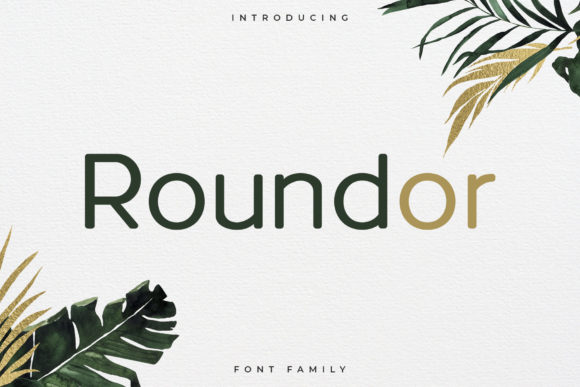
In a world clamoring for distinction, introduce Roundor Font, the contemporary sans serif font poised to transform your creative endeavors. Experience the allure of clean lines and understated elegance, a font meticulously crafted to elevate your designs and leave an indelible mark. Roundor Font is the epitome of versatility, effortlessly adapting to a symphony of design styles. Whether you're weaving your magic in the realm of logos, branding, or packaging, Roundor Font will elevate your creations with a touch of sophistication and charm.
Unleash your creativity and let Roundor Font guide you through a journey of limitless possibilities. Its clean and unassuming nature allows your designs to shine, commanding attention without overpowering the essence of your message. With Roundor Font, you'll discover a font that complements your vision, allowing your designs to speak volumes without uttering a single word.
Embrace the power of simplicity and let Roundor Font transform your designs into timeless masterpieces. Its understated elegance and unwavering legibility ensure that your message is conveyed with utmost clarity and impact. Whether you're crafting captivating headlines, compelling body copy, or alluring logos, Roundor Font will amplify your words, making them resonate with your audience.
Visualize your designs adorned with the graceful curves and impeccable balance of Roundor Font. Its modern and casual demeanor exudes a sense of approachability, inviting your audience to engage with your content on a deeper level. Roundor Font is the ultimate choice for those seeking to create designs that not only captivate the eye but also forge lasting connections with your audience.